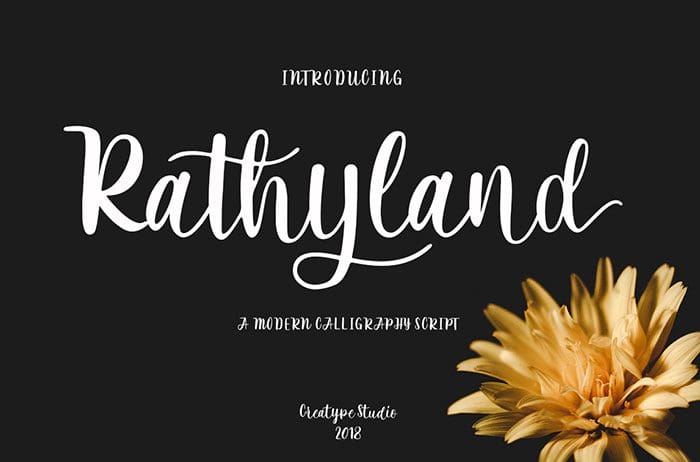
Rathyland Calligraphy Font
Rathyland is a modern calligraphy script with a handwritten style that makes this font looks stylish, elegant, and natural and so perfect for any awesome projects that need handwriting taste. Thanks to Creatype Studio for sharing this font! Take a look at this portfolio for more of his stunning fonts.